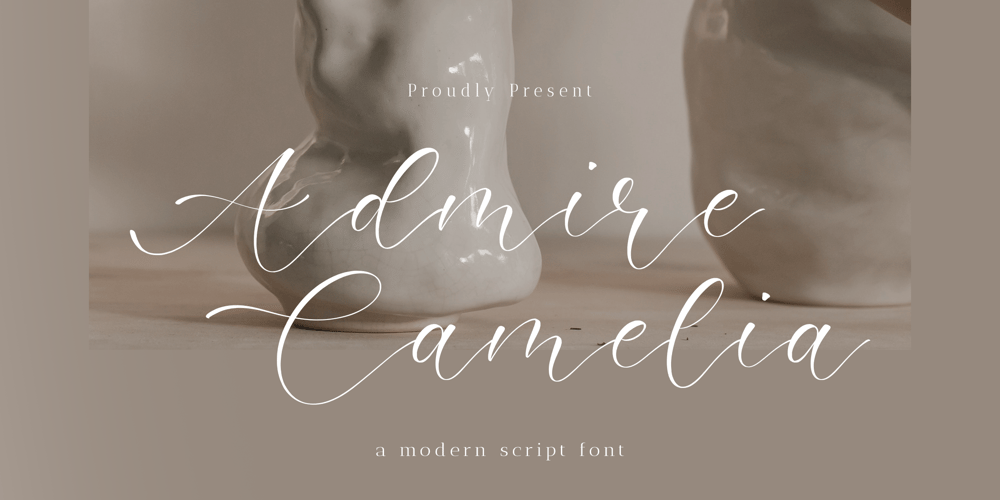
Admire Camelia Font Family was designed by Wara Sigit Tri Pamungkas and published by Timurtype. Admire Camelia contains 1 styles and family package options. Introducing by Timur typeProudly Present, Admire Camelia A Handwritten FontAdmire Camelia is perfect for product packaging, branding project, megazine, social media, wedding, or just used to express words above the background.Admire Camelia also multilingual support.Enjoy the font.Thank you!